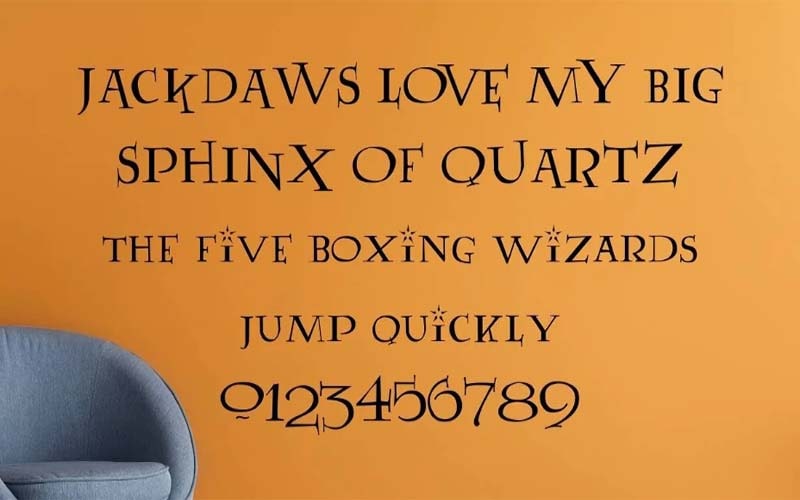
Lumos Font is a free fancy typeface with sharp edges sweet appearance that attracts the attention of viewers. This font designer CarpeSaponem took charge of designing and releasing it in 2000.
The display typeface is available in only a single style. This font contains 90 unique glyphs and 91 characters. These characters, it is compatible with short text or small projects.
Due to its stylish look, it is useful for various purposes such as printing on cards, banners, fancy film posters, printing on t-shirts, flyers, logo designs, advertisements, recipe names, and much more.
This font is inspired by Harry Potter books. It is very difficult for designers to create the best quality designs and provide customer satisfaction. So, if you are a designer then use this and definitely create some great designs.
Lumos Font
That’s why this beautiful font includes tasty, wild, and delicious curves with a thick texture. So, this amazing fact has made it great for displaying headlines and posters.
This is a great choice for those people who want to make their designs unique because the competition is very high in the present era. Because it has almost all the characters and symbols that are commonly used in designs.